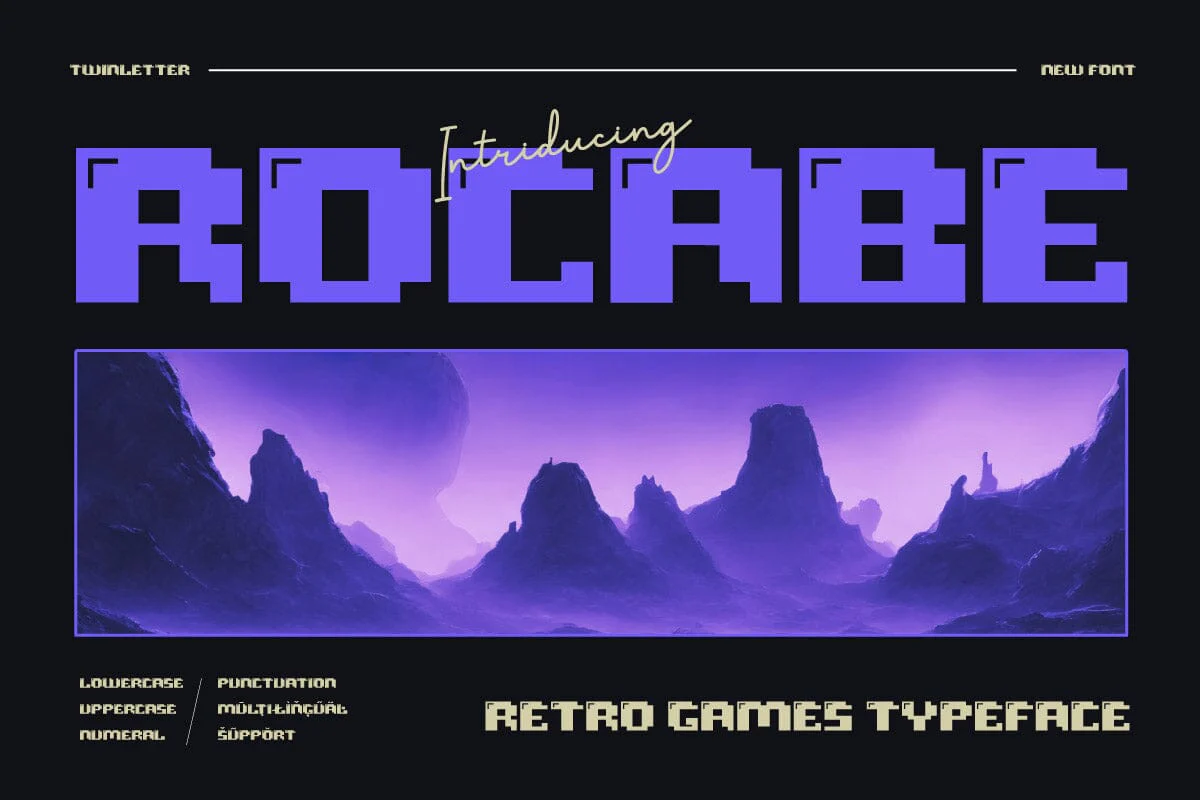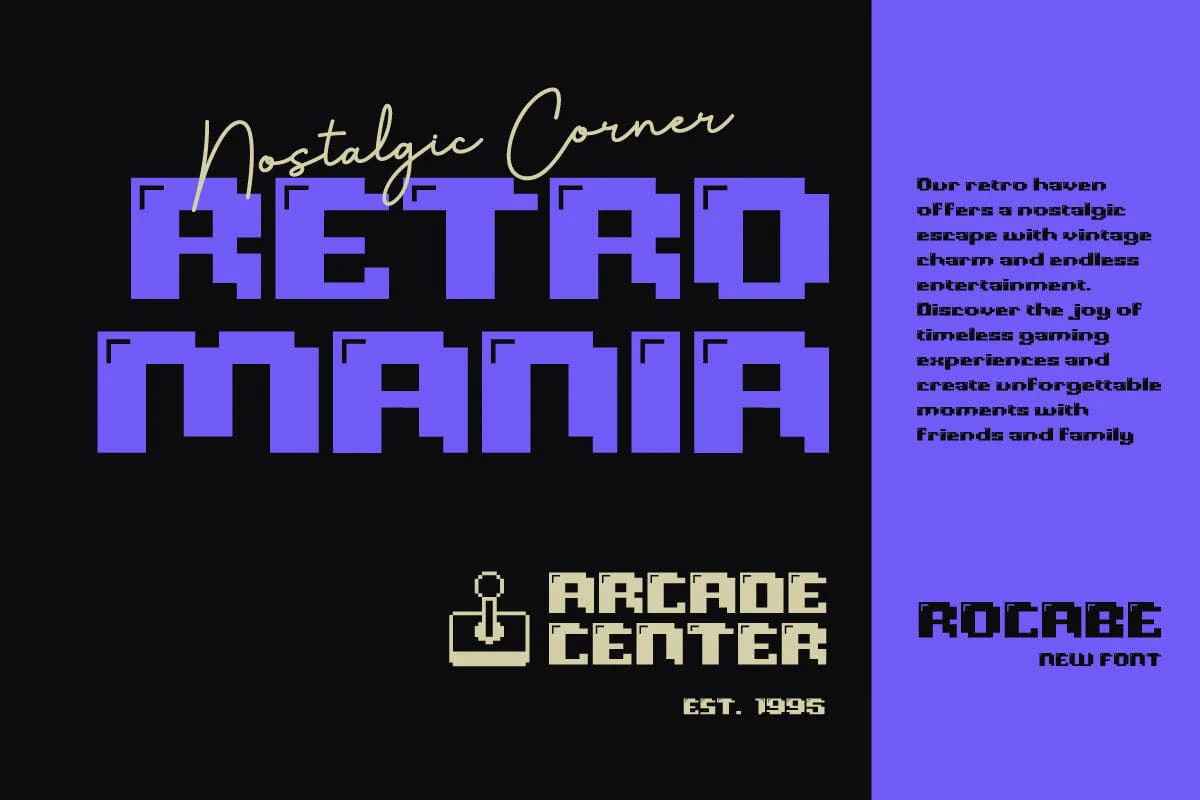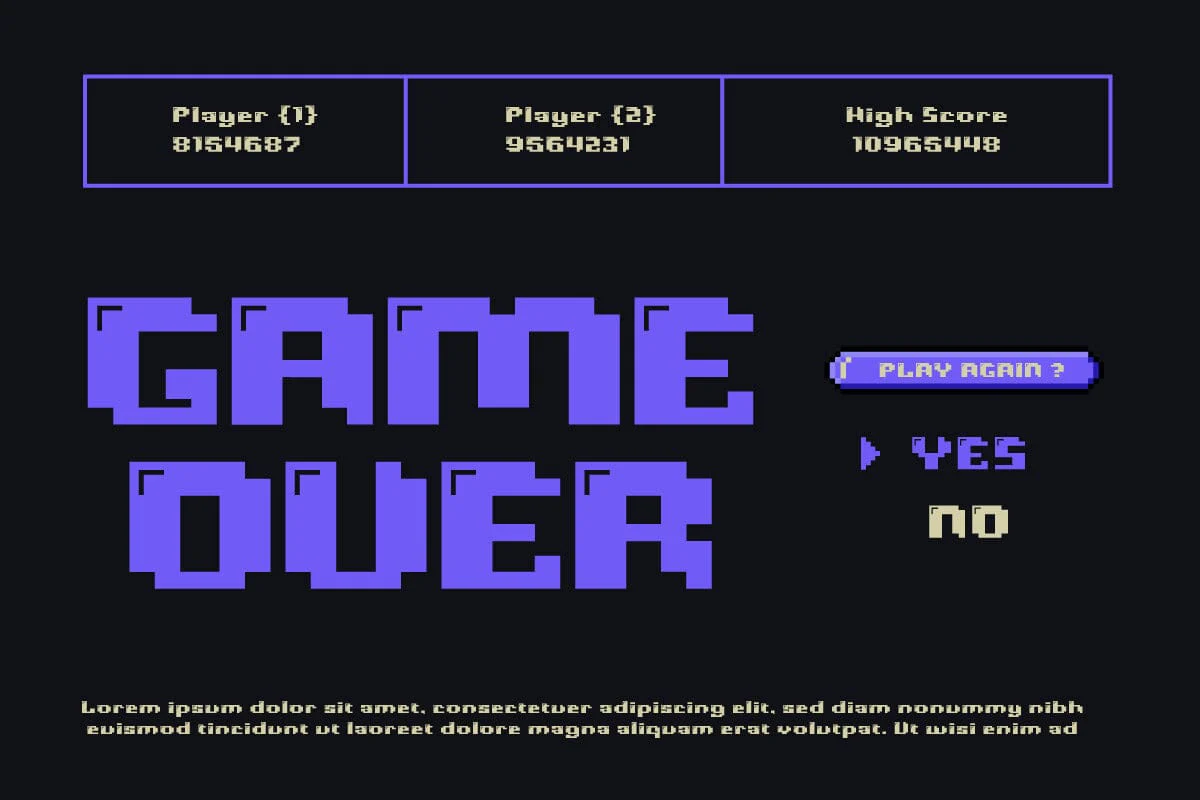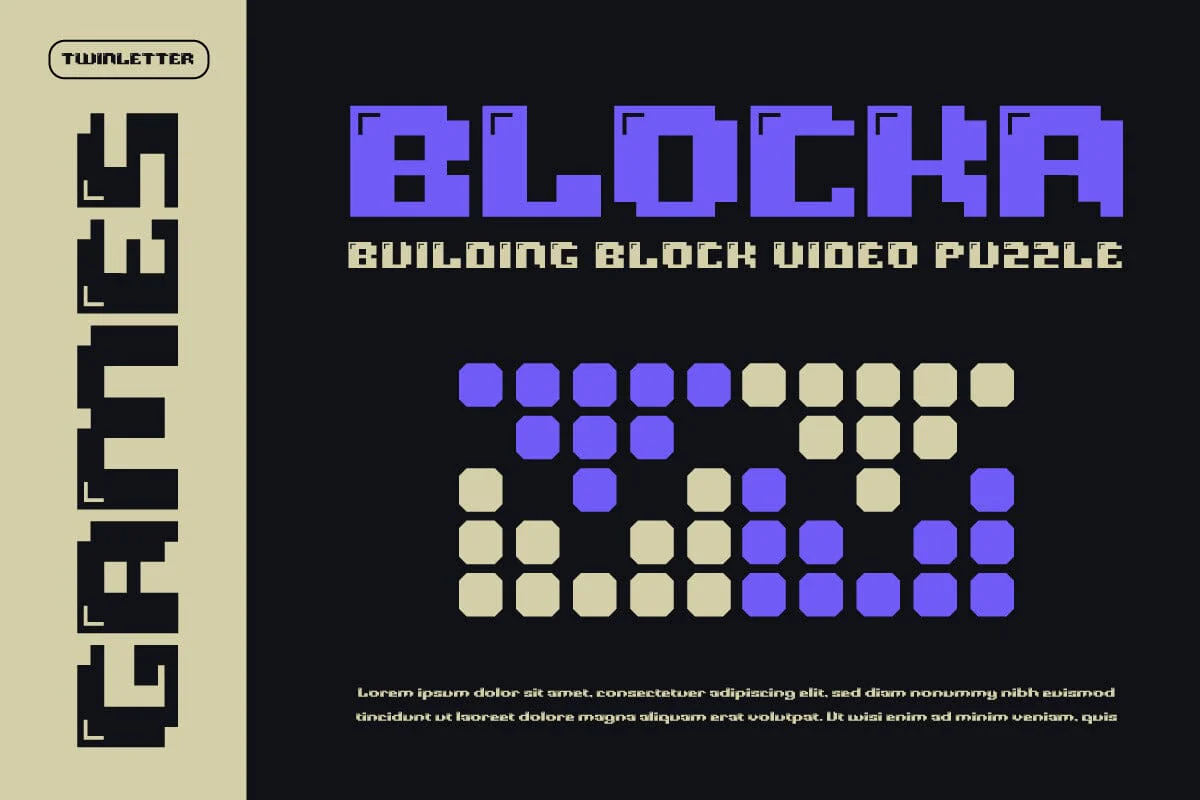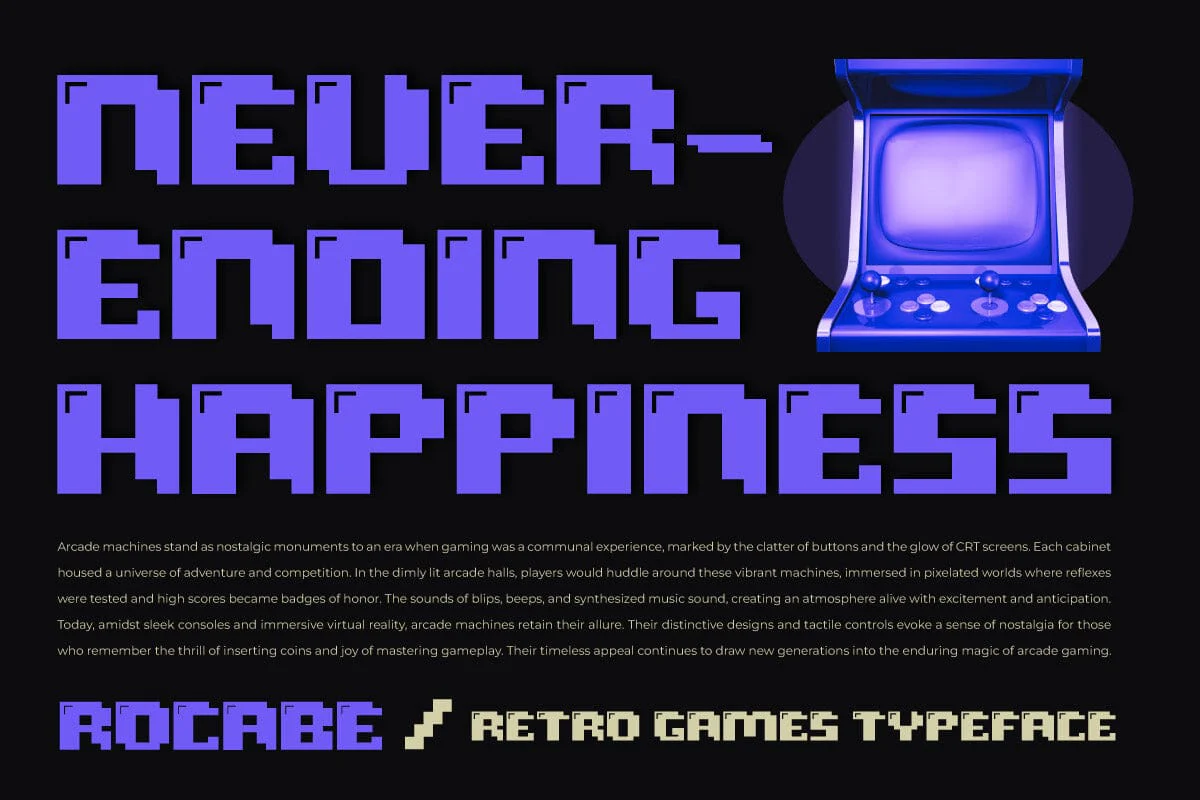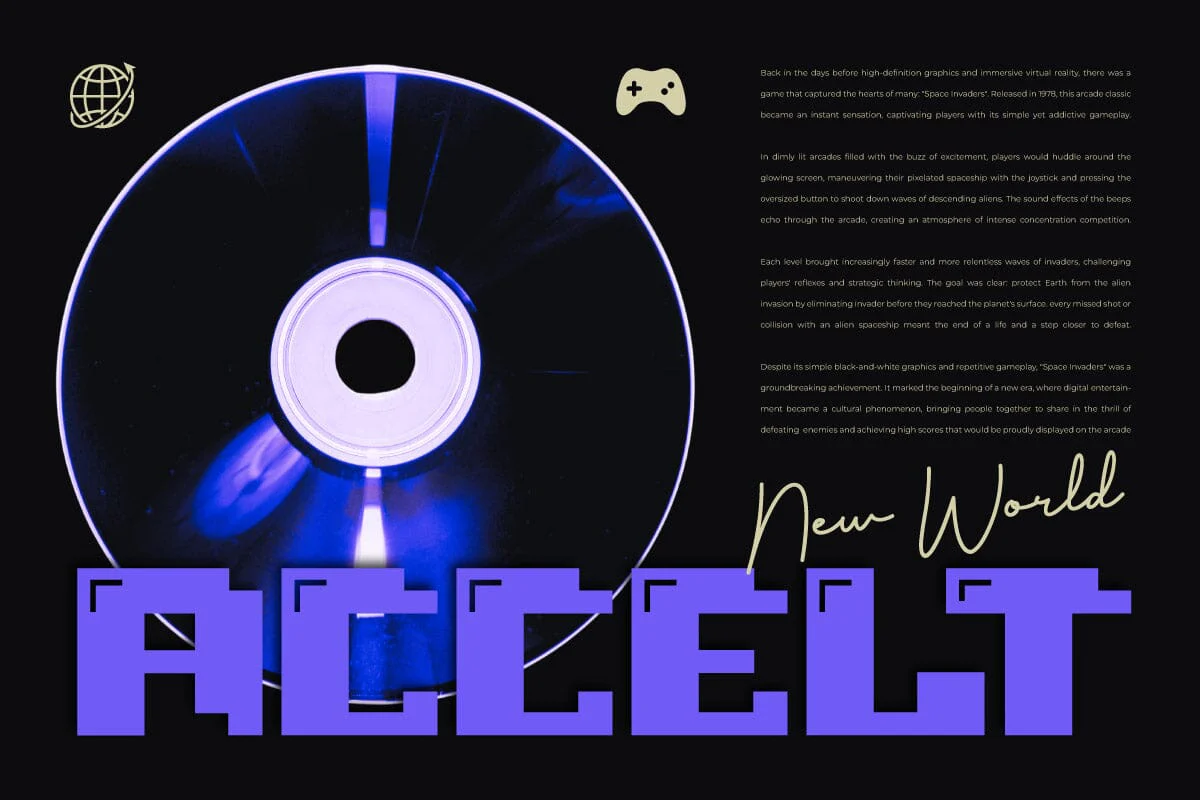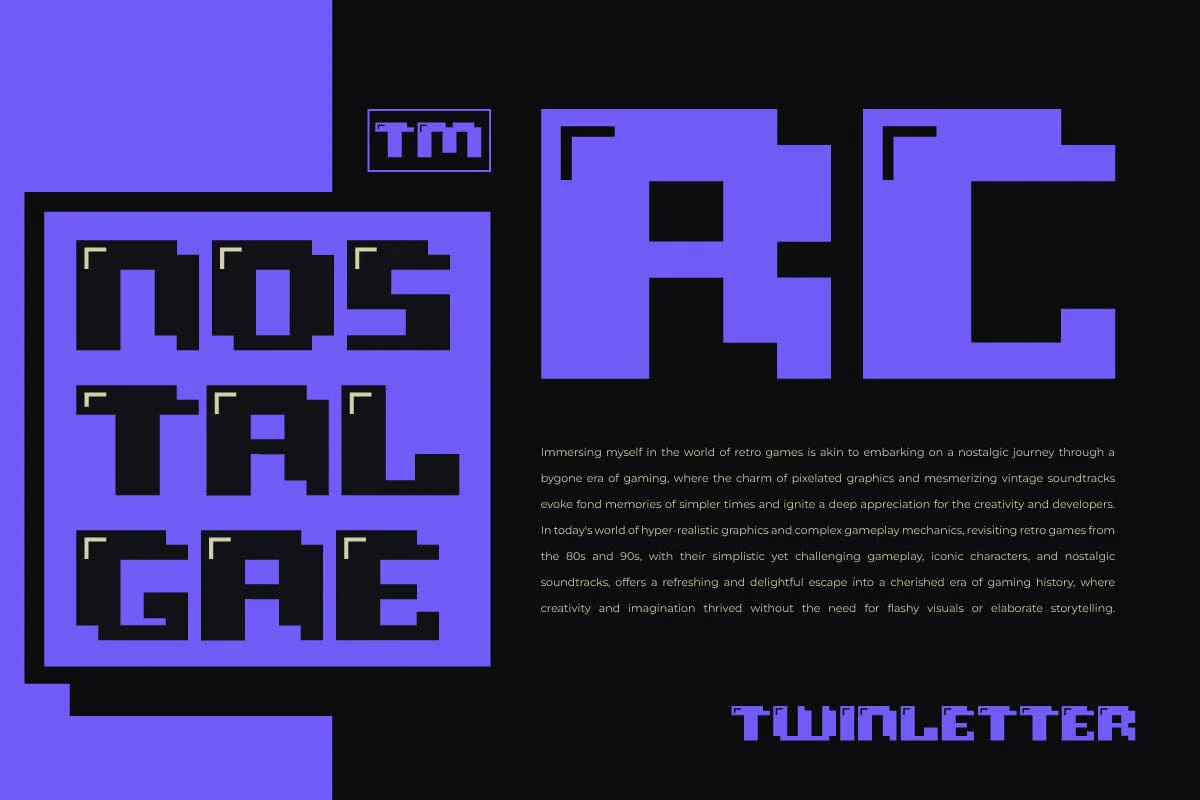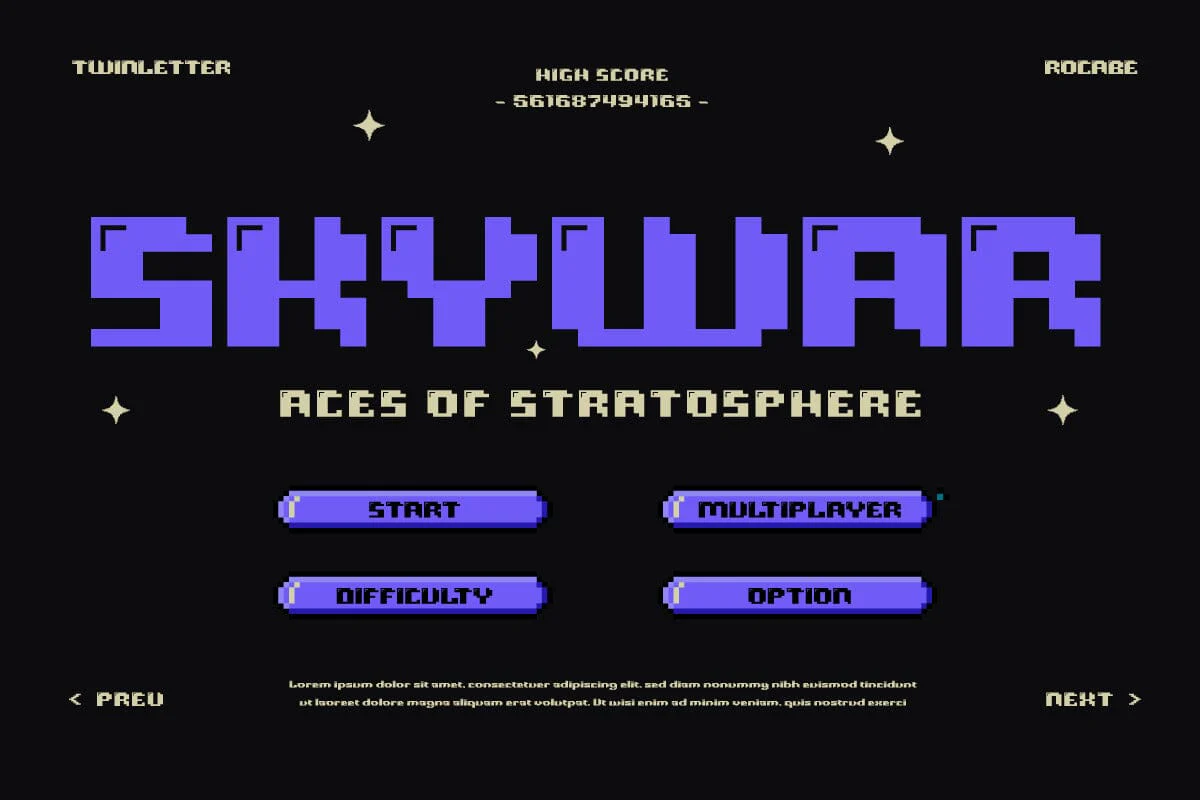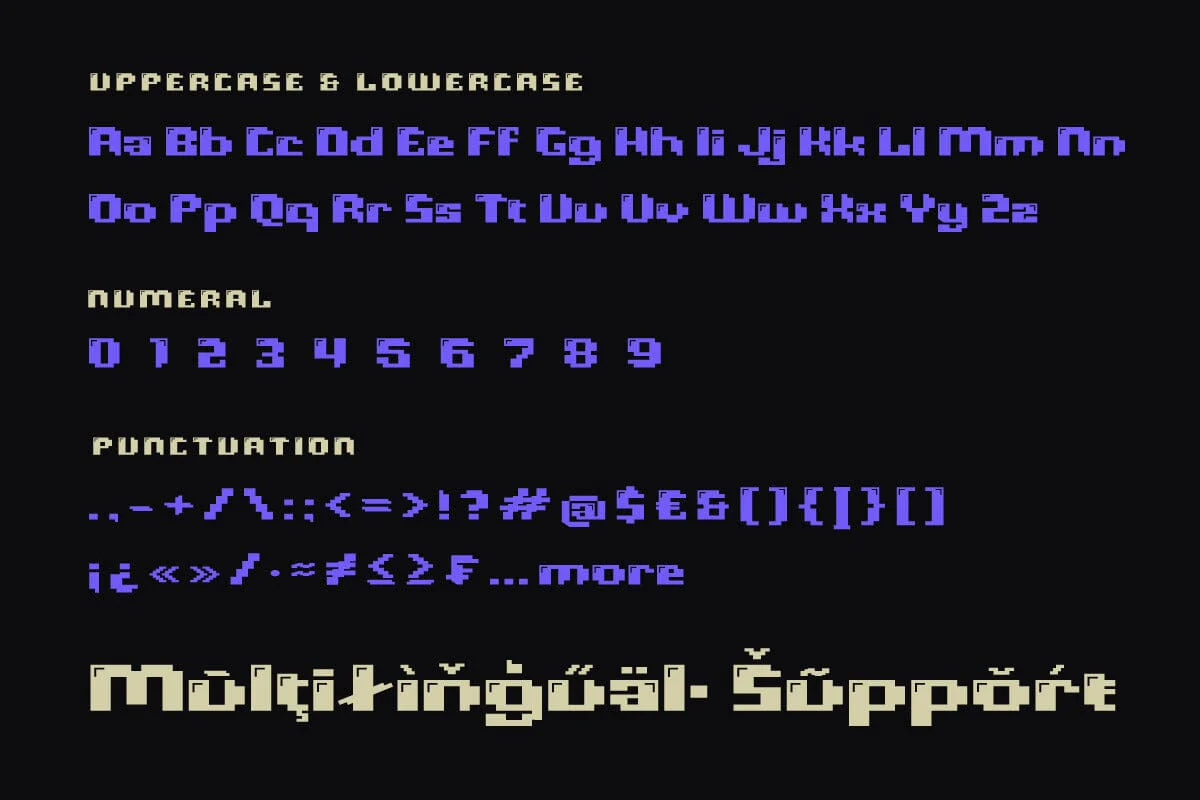
Rocabe - Retro Game Font
Introducing Rocabe - Retro Game Font
Step into a world where nostalgia meets modernity with Rocabe, the Retro Game Font that brings back the pixelated charm of classic gaming. Designed to evoke memories of arcade adventures and pixel-perfect landscapes, Rocabe blends the simplicity of old-school gaming aesthetics with the crispness and readability demanded by contemporary design standards.
Rocabe isn't just a font; it's a journey through time, a homage to the golden age of gaming. Whether you're designing a vintage-themed poster, creating pixel art, or developing an indie game, Rocabe adds a touch of nostalgia and authenticity that modern fonts simply can't replicate.